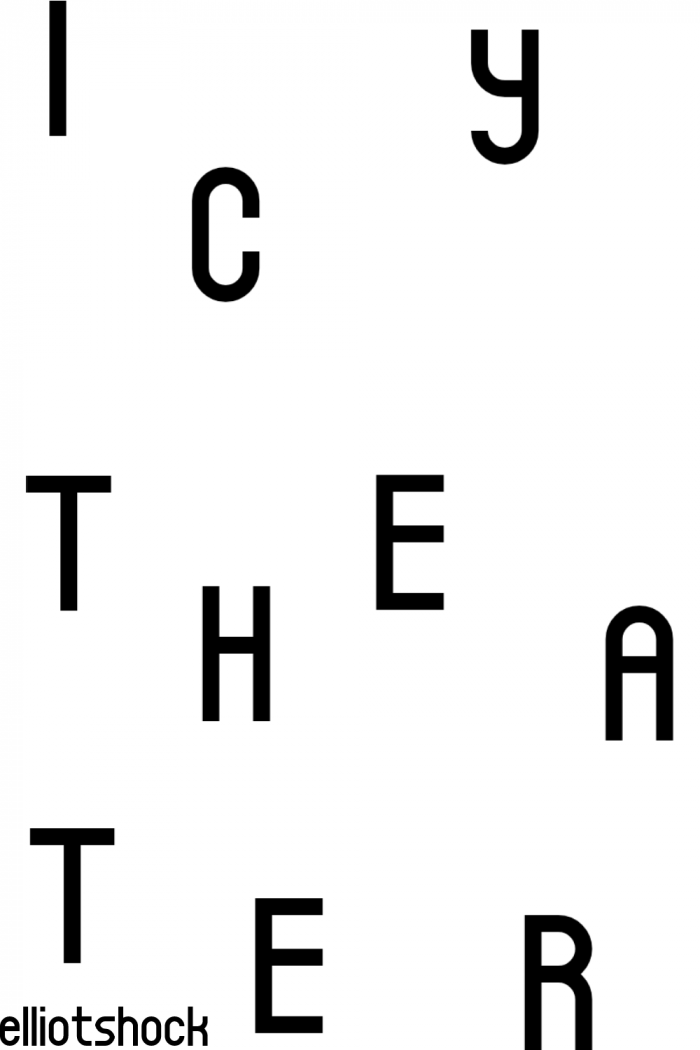
Fixed glitch where all lines on left were circles
Added different glyph for letter N
Fixed periods and Commas
Added more glyphs
Changed number 4 to have a slanted line
Changed glyph for letter T